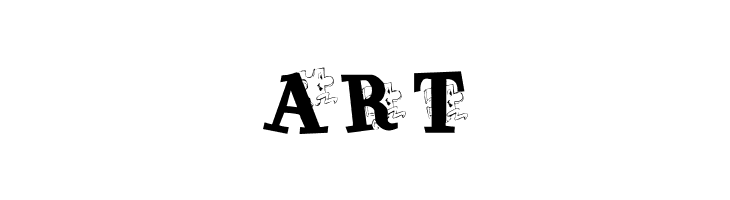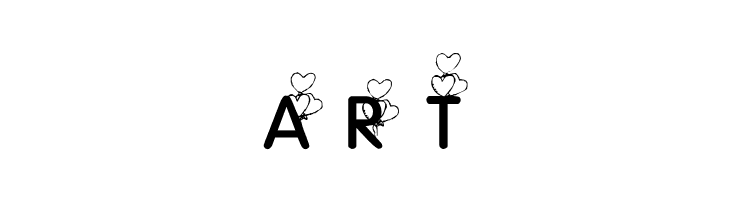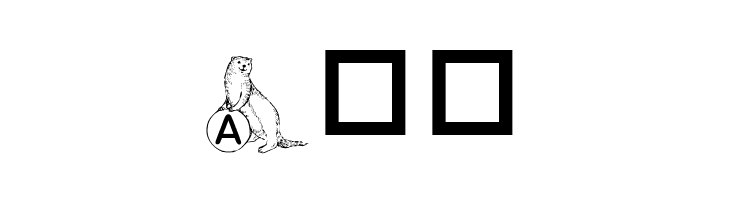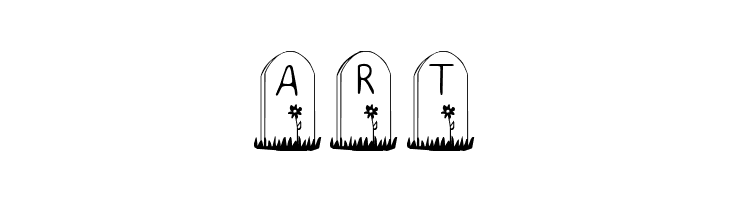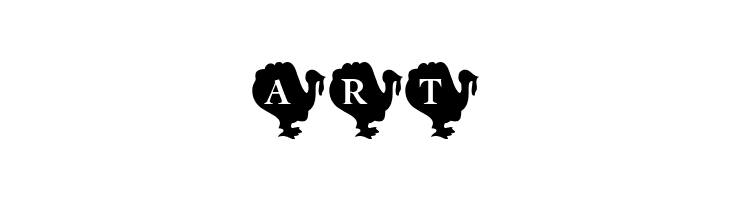
A playful, puzzle-themed decorative font with bold, uppercase letters.
A whimsical font with heart-shaped balloon embellishments on bold uppercase letters.
A playful, cracked-style font with bold, decorative uppercase letters.
A whimsical font with uppercase letters inside ferret illustrations, perfect for playful designs.
A decorative font with uppercase letters inside gravestone shapes, featuring flowers and grass.
A decorative font with uppercase letters in a sunburst design, perfect for creative projects.
A playful, animal-themed decorative font with bold uppercase letters.
A decorative serif font with uppercase letters framed by intricate floral designs.
A playful font with uppercase letters in popsicle-shaped outlines.
A decorative font with uppercase letters inside turkey silhouettes.